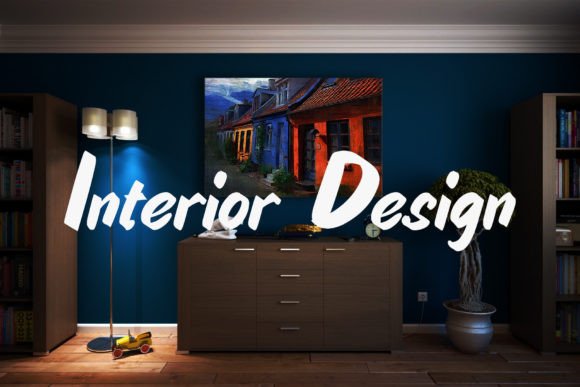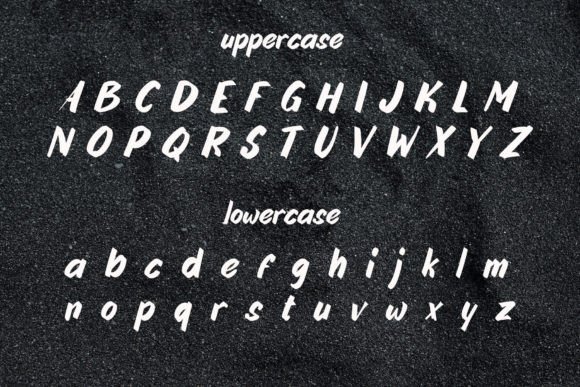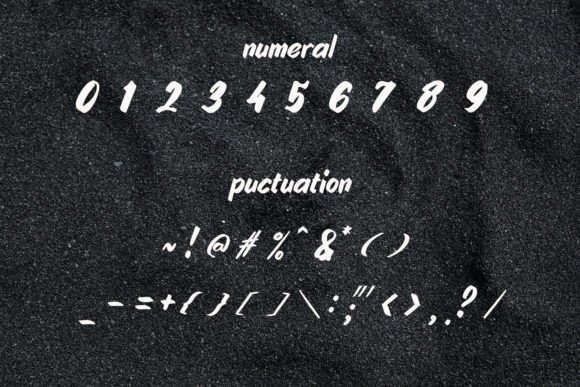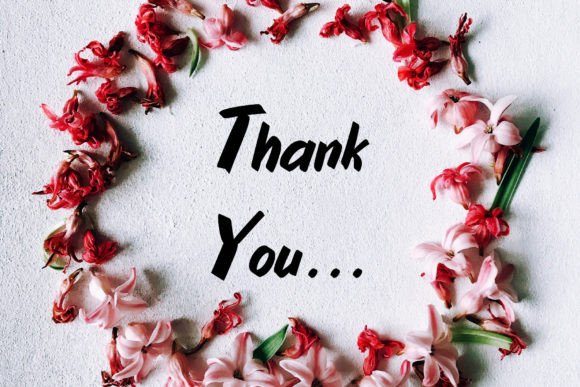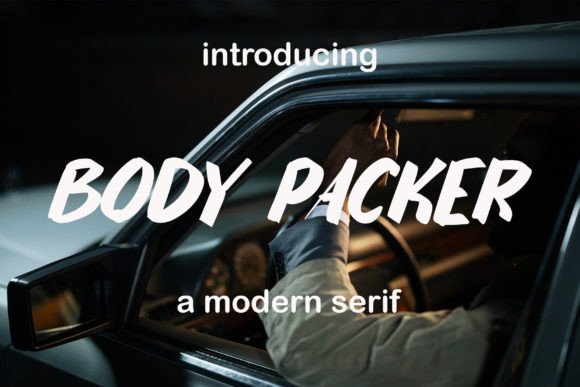
Introducing Body Packer Font: The Fun and Bold Handwritten Font You Need!
Are you tired of using the same old fonts in your design projects? Do you want to add a touch of personality and whimsy to your creations? Look no further than Body Packer Font, a fun and bold handwritten font that’s sure to take your designs to the next level!
What is Body Packer Font?
Body Packer Font is a unique and eye-catching handwritten font that’s perfect for designers, crafters, and anyone looking to add a bit of flair to their projects. With its bold and playful style, this font is sure to make a statement and leave a lasting impression.
Key Features of Body Packer Font
- Handwritten style: Body Packer Font has a charming, handwritten feel that’s perfect for adding a personal touch to your designs.
- Bold and playful: This font is not for the faint of heart! Body Packer Font is bold, playful, and sure to grab attention.
- Easy to read: Despite its bold style, Body Packer Font is surprisingly easy to read, making it perfect for use in a variety of design projects.
- Versatile: Whether you’re working on a logo, poster, or social media graphic, Body Packer Font is versatile enough to fit in with any design style.
Why Use Body Packer Font?
So why should you choose Body Packer Font for your next design project? Here are just a few reasons:
- Add personality to your designs: With Body Packer Font, you can add a touch of personality and whimsy to your designs, making them stand out from the crowd.
- Make a statement: This bold and playful font is sure to grab attention and make a statement, whether you’re designing a logo, poster, or social media graphic.
- Perfect for crafters: If you’re a crafter or DIY enthusiast, Body Packer Font is a great choice for adding a personal touch to your handmade projects.
- Pair it with a simple font: For maximum impact, pair Body Packer Font with a simple font to create a striking contrast.
- Use it for headlines: Body Packer Font is perfect for use in headlines, titles, and other attention-grabbing elements.
In conclusion, Body Packer Font is a fun and bold handwritten font that’s perfect for designers, crafters, and anyone looking to add a bit of personality to their projects. With its bold and playful style, easy readability, and versatility, this font is sure to become a favorite in your design arsenal. So why wait? Add Body Packer Font to your projects today and see the amazing results for yourself!
Body Packer is a fun and bold handwritten font. Add it confidently to your projects and you will love the results!